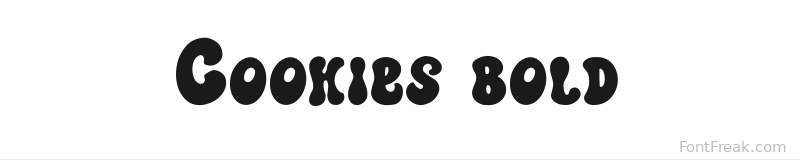
Cookies bold
Cookiesbold, created by Kong Font, is a striking display font that captures attention with its playful yet bold character. As a sans-serif typeface, it features rounded edges and a hefty stroke weight, making it an ideal choice for designs that require a strong visual statement. The contrast in stroke weight is minimal, providing a consistent and inviting appearance. The spacing between letters is well-balanced, ensuring readability while maintaining an engaging style. This font is characterized by its whimsical design that evokes a sense of fun, making it perfect for projects that aim to convey creativity and enthusiasm.
Best suited for a variety of applications, Cookiesbold excels in settings like children’s event invitations, playful branding for cafes and restaurants, vibrant social media graphics, and eye-catching advertisements. Its unique personality makes it a great choice for graphic designers looking to add a distinctive touch to their projects as well as small business owners aiming to attract customers with a friendly, approachable aesthetic. Content creators will find it particularly useful for crafting engaging visuals that stand out in crowded feeds.